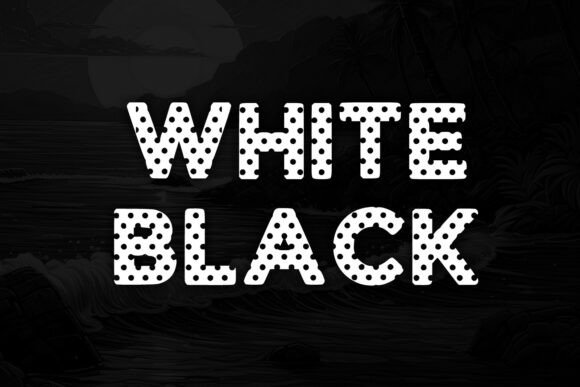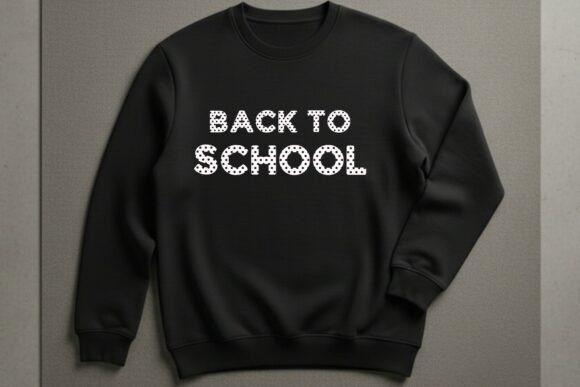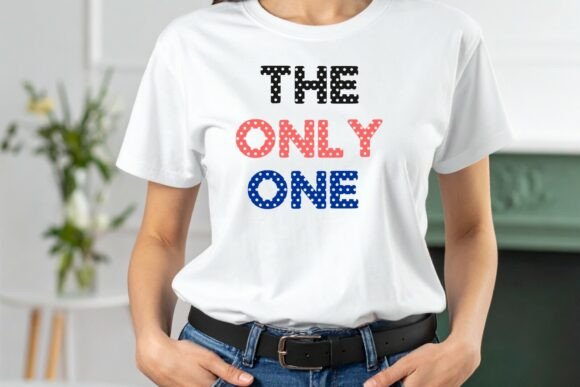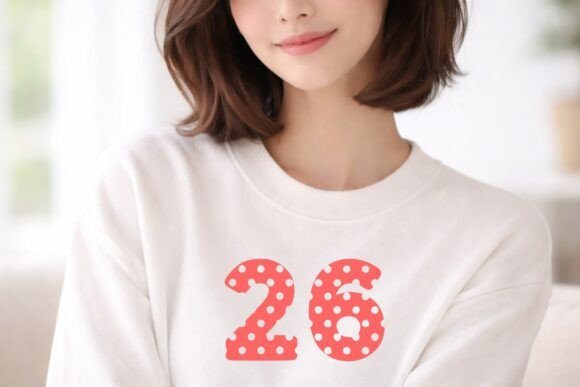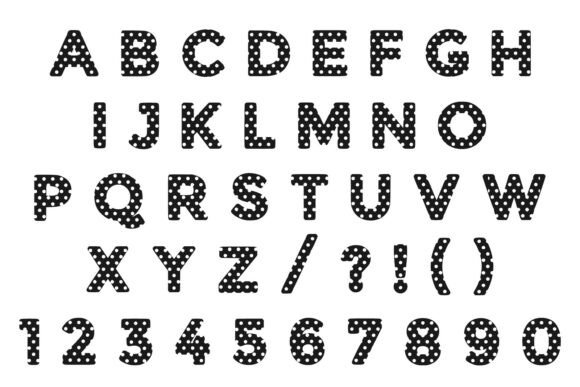
Introduction to Polka Vintage Font
Have you ever been brainstorming ideas for a creative project and suddenly, the perfect font pops into your mind? That’s exactly what happened to many designers when they laid eyes on the charming Polka Vintage Font. This bold and stylish display font has been a game-changer in the design world, adding a touch of nostalgia and playfulness to any project.
Whether you’re working on a retro-themed poster, a branding project, or a social media graphic, the Polka Vintage Font is an excellent choice. Its high-quality design and transparent background make it easy to use and customize, while its unique polka dot pattern adds a decorative touch that’s sure to grab attention. As a valuable design resource, the Polka Vintage Font is a must-have for any creative project.
Key Features of Polka Vintage Font
- Unique and creative design perfect for various projects, including invitations, posters, and advertising materials.
- High-quality, professional font ideal for designers looking for a design resource to elevate their creative project.
- Features a transparent background, allowing for easy customization and integration into various design elements.
- Its distinctive, ornate style sets it apart from other fonts, making it an excellent choice for designers who want to add a touch of elegance and sophistication to their work.
Honest Review: Polka Vintage Font
I recently had the chance to work with the Polka Vintage Font for a creative project, and I must say it’s a fantastic design resource. ✨ The font’s high-quality design and unique aesthetic made it perfect for a vintage-themed poster I was creating.
One of the standout features of the Polka Vintage Font is its ability to be used with a transparent background, which adds a level of depth and dimensionality to any design. ✨ I was able to use it to create a beautiful, eye-catching title for my project.
Here are some of the key features that I liked about the Polka Vintage Font:
- Unique, high-quality design
- Works well with transparent backgrounds
- Perfect for vintage-themed projects
However, I did encounter some limitations while working with the Polka Vintage Font. ⚠️ The font only comes in a limited number of weights, which can make it difficult to achieve the perfect level of contrast and balance in a design.
Overall, I’m really impressed with the Polka Vintage Font, and I would highly recommend it to anyone working on a creative project that requires a unique, high-quality font.
Tips for Getting the Most Out of Polka Vintage Font
To get the most out of Polka Vintage Font, use it in combination with other design elements, such as images or graphics. You can also experiment with different font sizes, colors, and styles to create a unique look.
Common Use Cases for Polka Vintage Font
Polka Vintage Font is perfect for a variety of creative projects, including invitations, posters, and social media graphics. It’s also great for creating a vintage or retro-themed design.